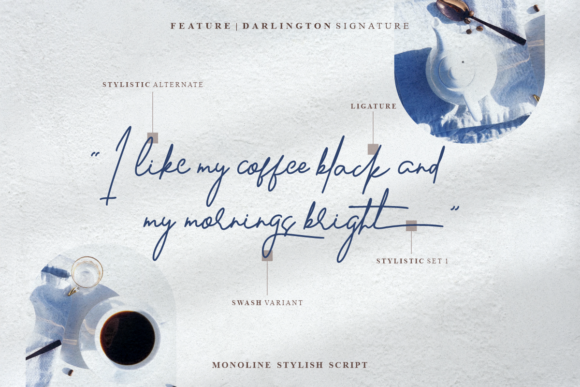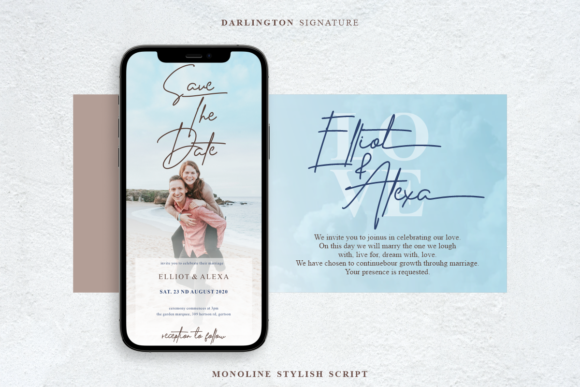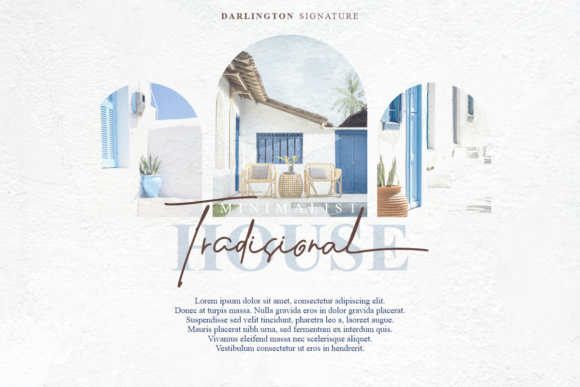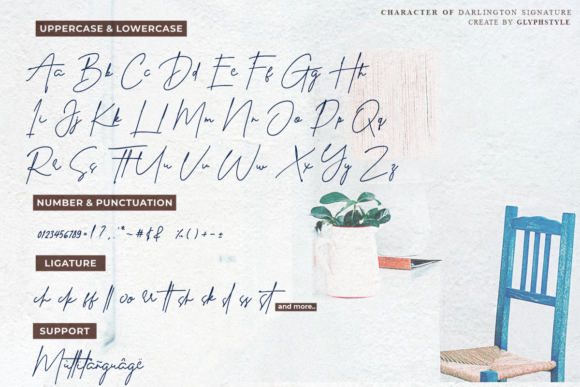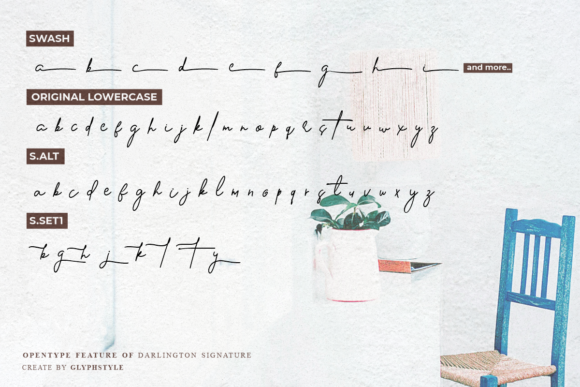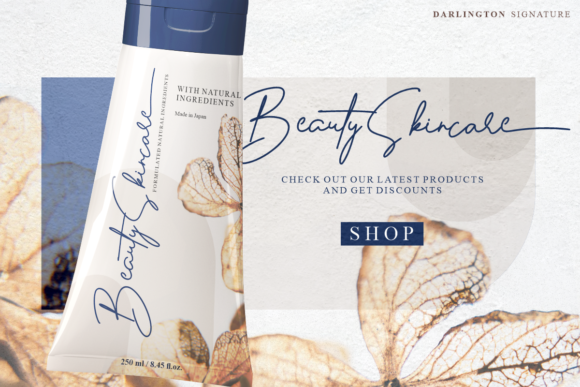
Introducing Darlington Signature Font: Elevate Your Designs with Elegance and Class
In the world of typography, a well-crafted font can make all the difference in transforming a design from ordinary to extraordinary. For designers and crafters seeking a beautiful and refreshing look, Darlington Signature Font is an exquisite choice. This lovely and delicate script font exudes elegance and class, making it perfect for a variety of design projects.
What Makes Darlington Signature Font Special?
Darlington Signature Font was particularly crafted for those who need a beautiful and refreshing look to their designs. Its unique and elegant style sets it apart from other fonts, making it an excellent addition to any designer’s toolkit. Whether you’re working on a logo, invitation, or any other design project, Darlington Signature Font is sure to impress.
One of the standout features of Darlington Signature Font is its PUA (Private Use Area) encoding. This means that you can access all of the glyphs and swashes with ease, giving you greater flexibility and creative control over your designs. With PUA encoding, you can effortlessly navigate the font’s extensive character set, including alternates, ligatures, and decorative swashes.
Darlington Signature Font is an incredibly versatile font that can be used for a wide range of design projects. Here are just a few examples:
- Logos and Branding: Create a lasting impression with a custom logo that exudes elegance and sophistication.
- Invitations and Stationery: Add a touch of class to your wedding invitations, business cards, and letterheads.
- Packaging and Product Design: Elevate your product packaging with a beautiful and eye-catching design.
- Digital and Print Media: Use Darlington Signature Font in your digital and print media, such as brochures, flyers, and social media graphics.
Why Choose Darlington Signature Font?
With so many fonts available, why choose Darlington Signature Font? Here are just a few reasons:
- Unique and Elegant Style: Darlington Signature Font boasts a distinctive and sophisticated style that will set your designs apart.
- Ease of Use: With PUA encoding, you can easily access all of the font’s features and glyphs.
- High-Quality Design: Darlington Signature Font is crafted with attention to detail, ensuring a high-quality design that will impress.
Tips for Using Darlington Signature Font
To get the most out of Darlington Signature Font, here are a few tips:
- Pair with a Sans-Serif Font: Combine Darlington Signature Font with a clean sans-serif font for a striking contrast.
- Experiment with Swashes: Take advantage of the font’s decorative swashes to add a touch of elegance to your designs.
- Use for Headings and Titles: Darlington Signature Font is perfect for headings and titles, adding a touch of sophistication to your designs.
| Font Name | Darlington Signature Font |
| Author | glyphstyle |
In conclusion, Darlington Signature Font is a beautiful and elegant script font that is sure to elevate your designs. With its PUA encoding, unique style, and high-quality design, it’s an excellent choice for designers and crafters seeking a refreshing look. Whether you’re working on a logo, invitation, or any other design project, Darlington Signature Font is a versatile and sophisticated font that will help you create stunning designs.